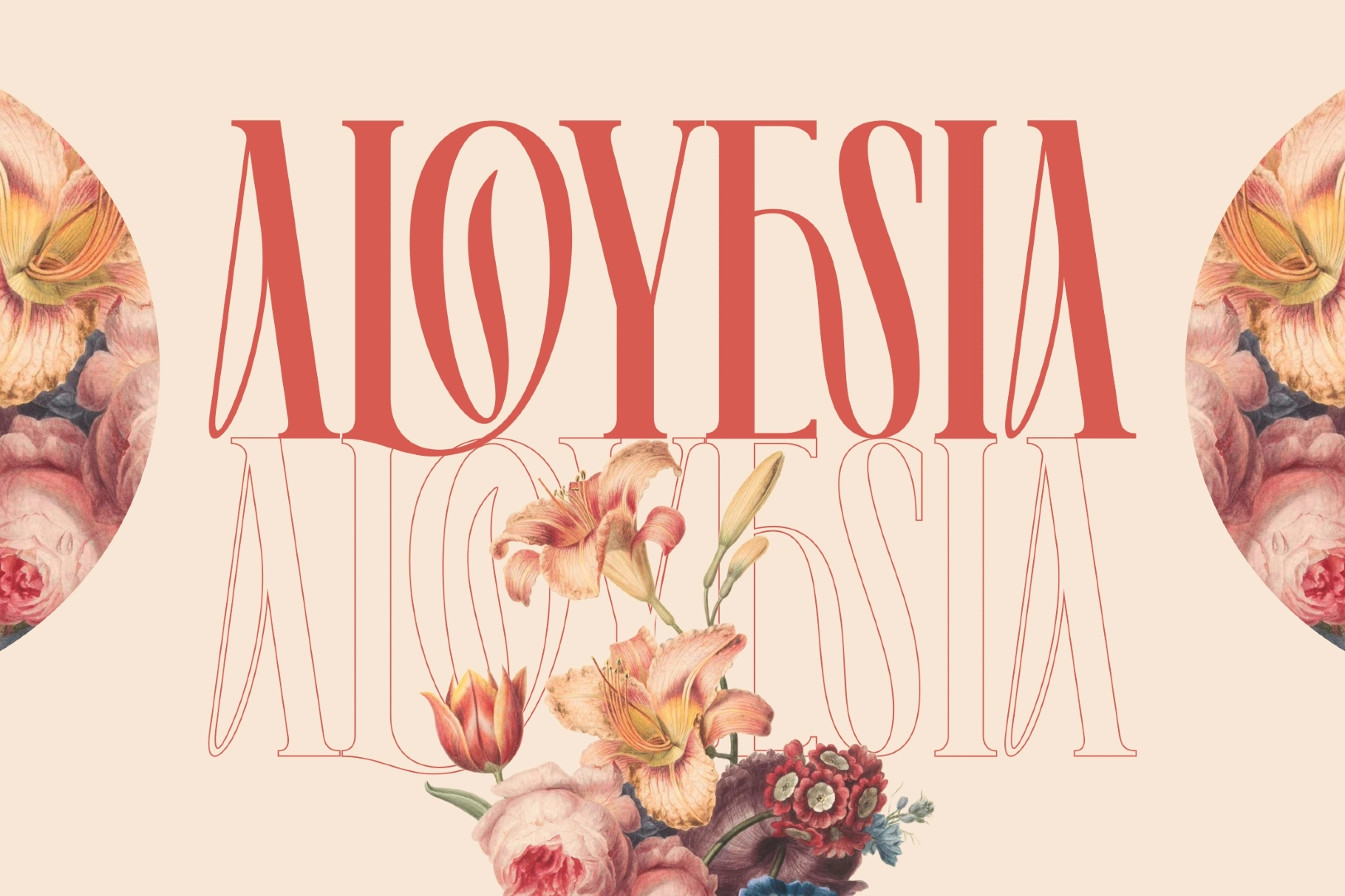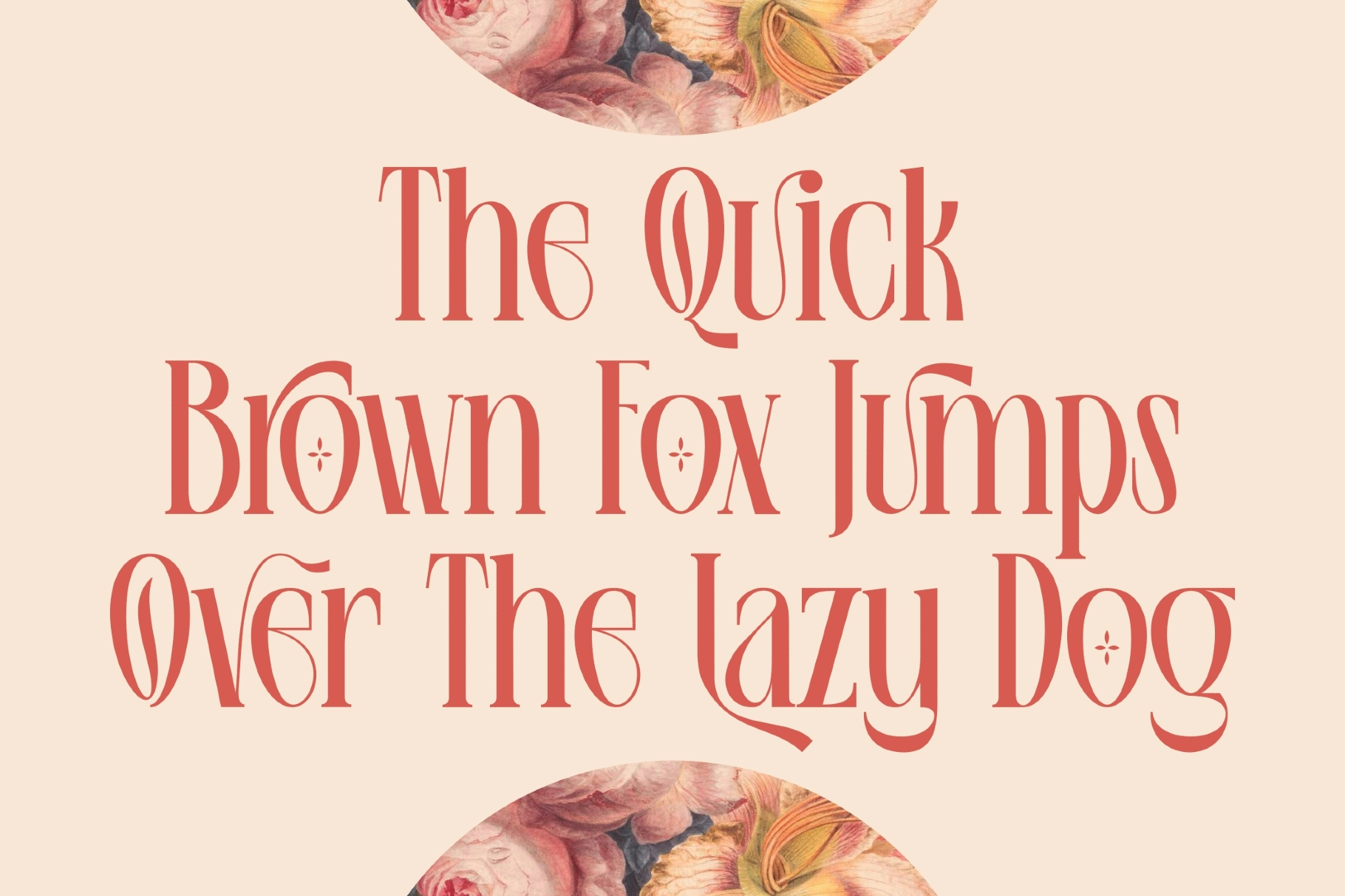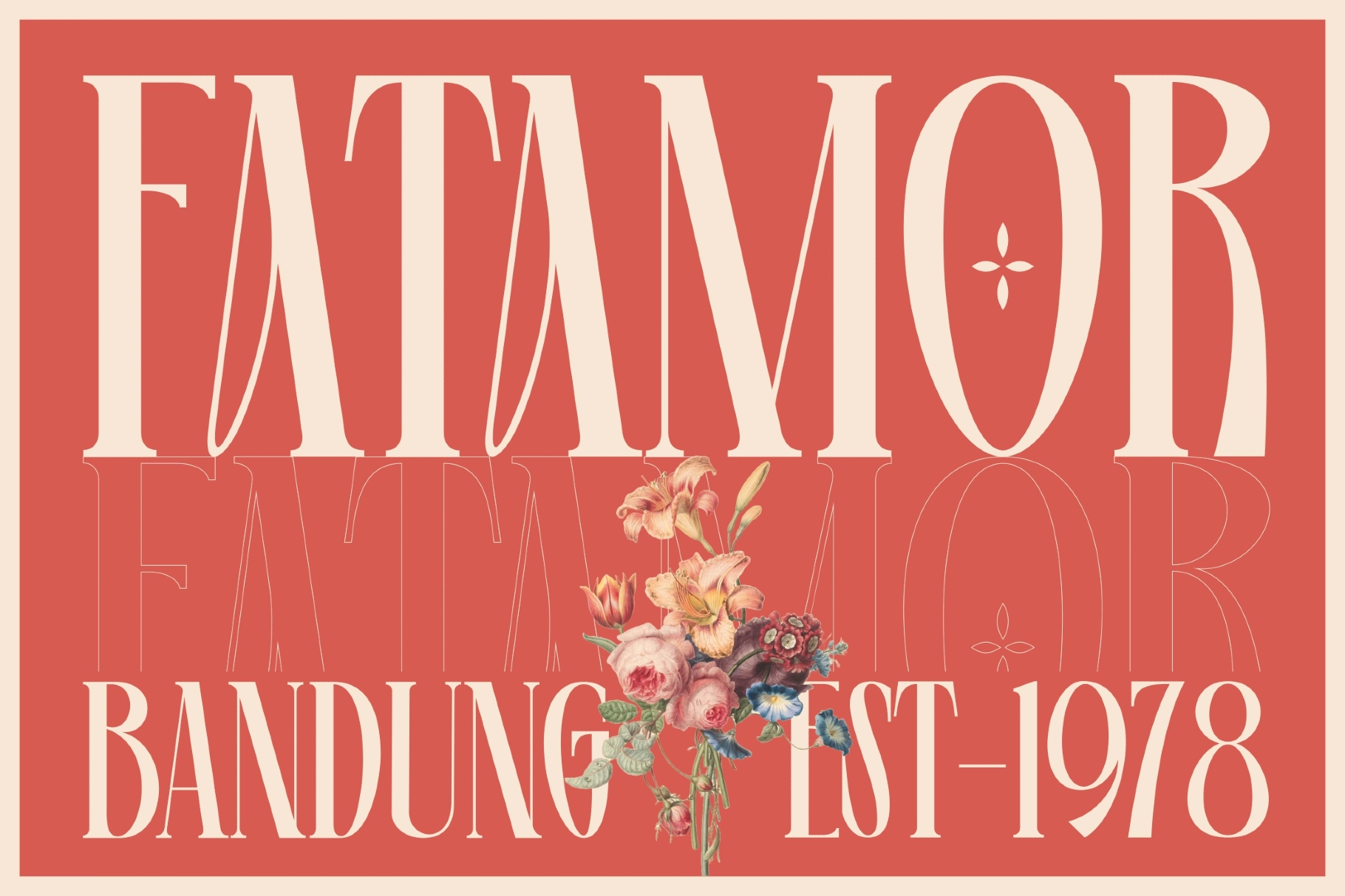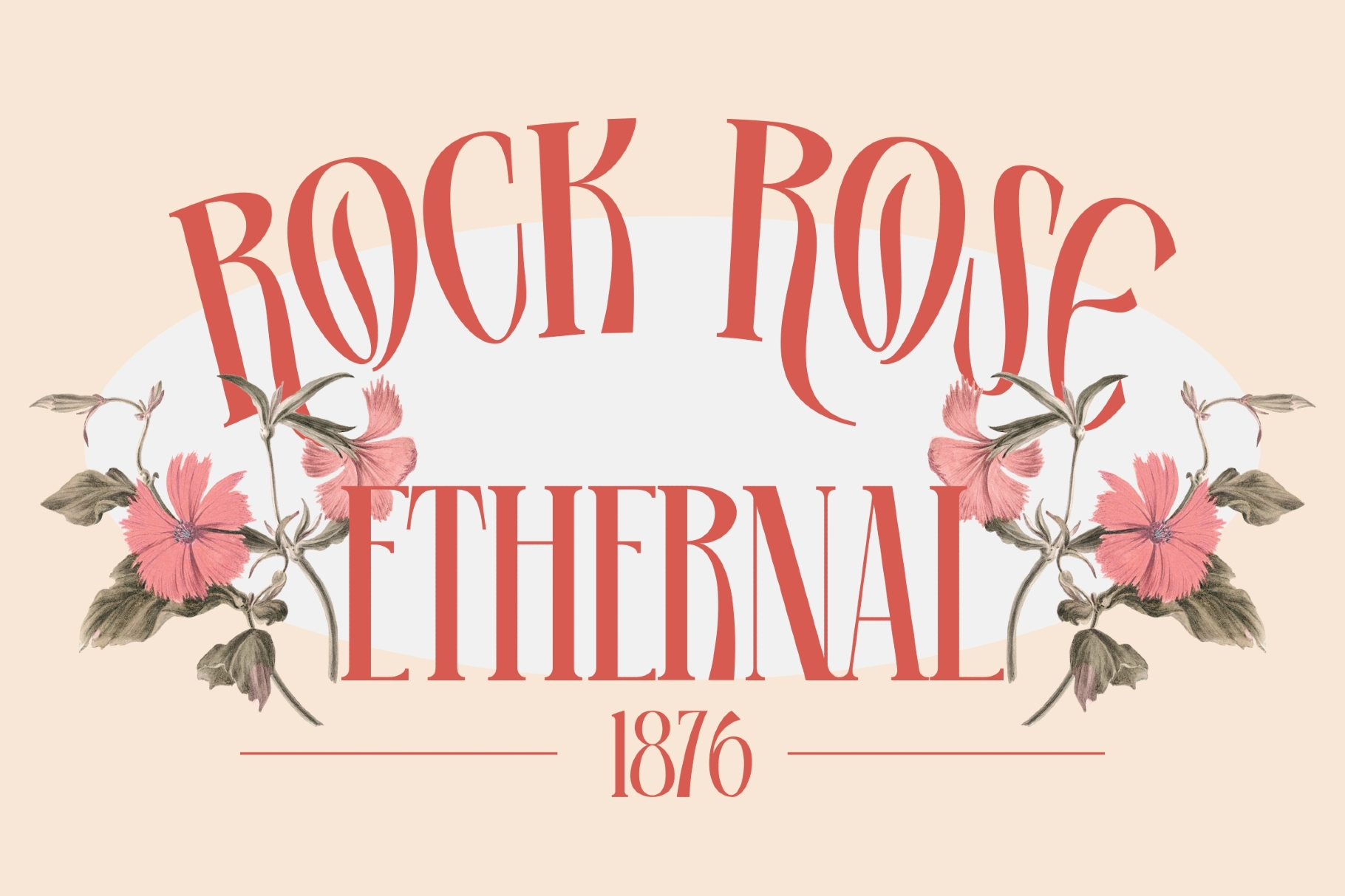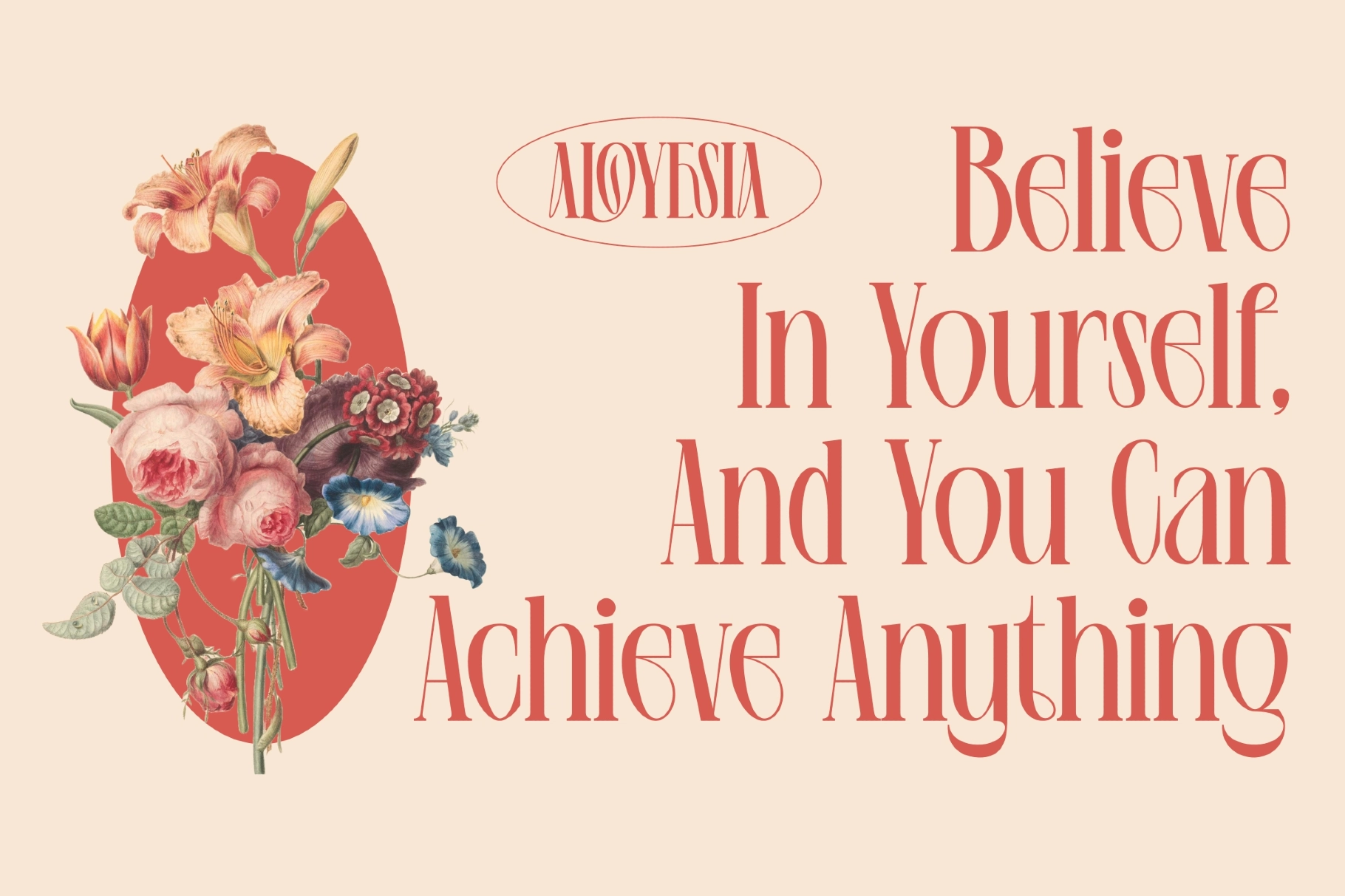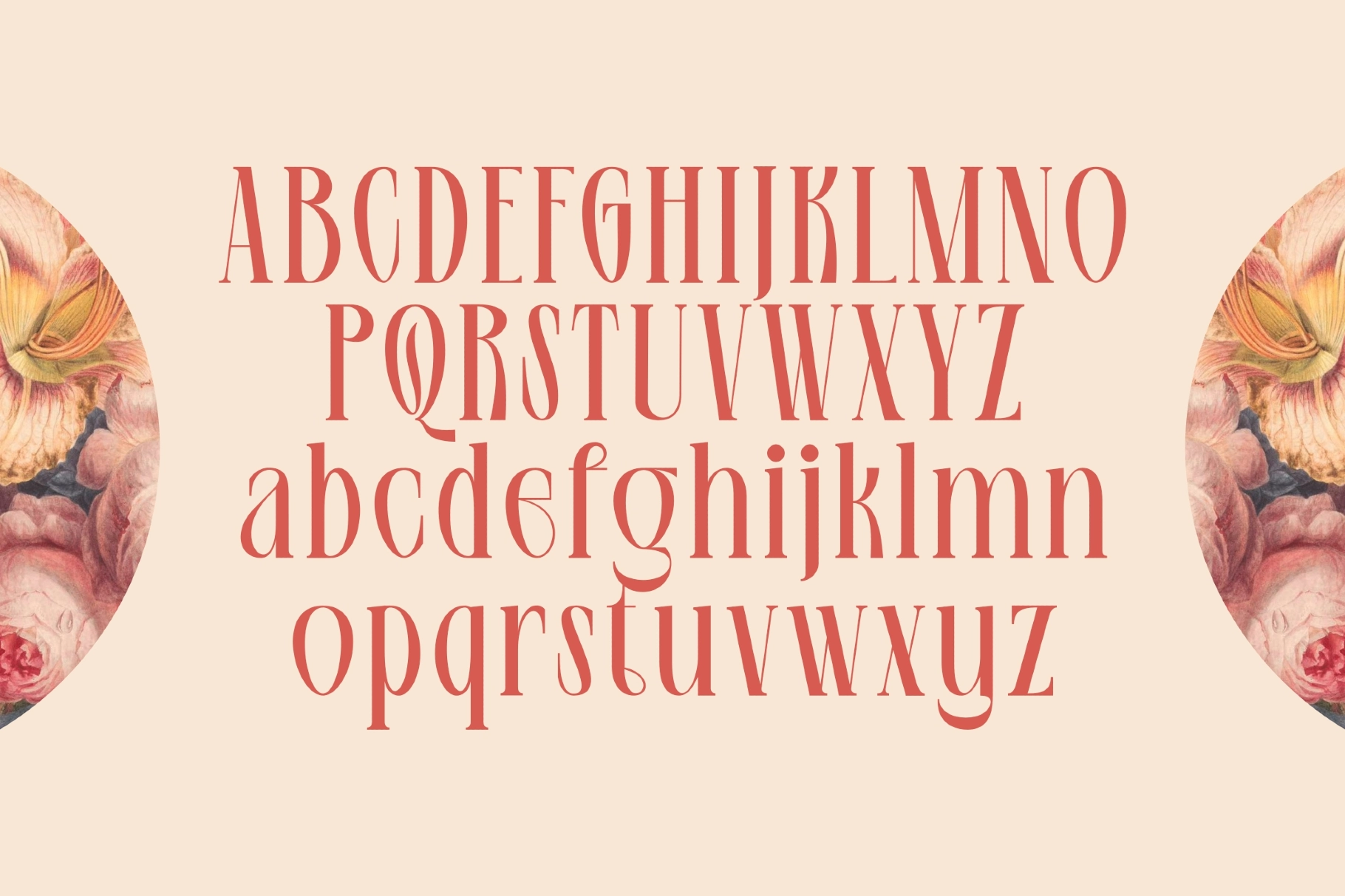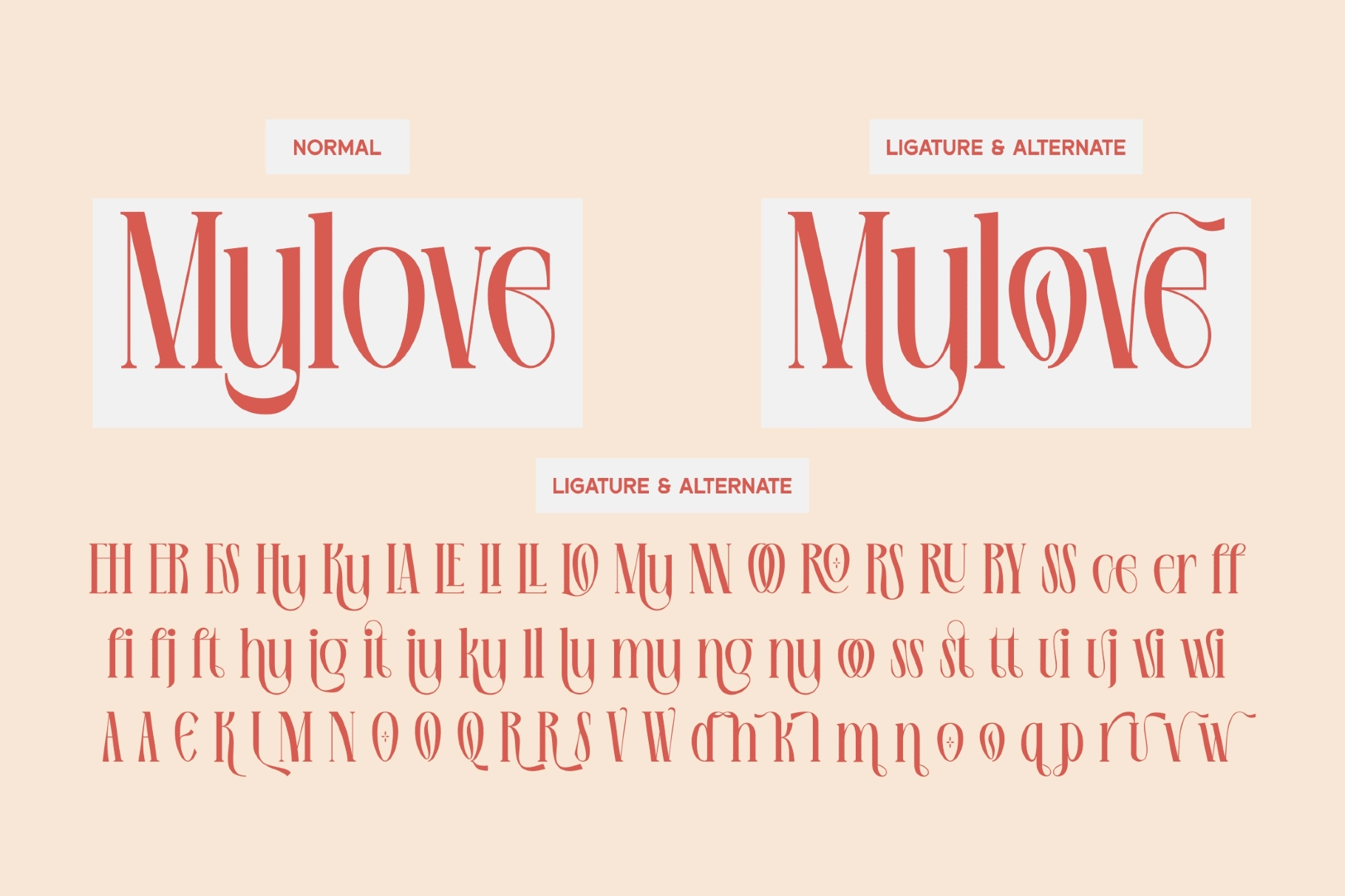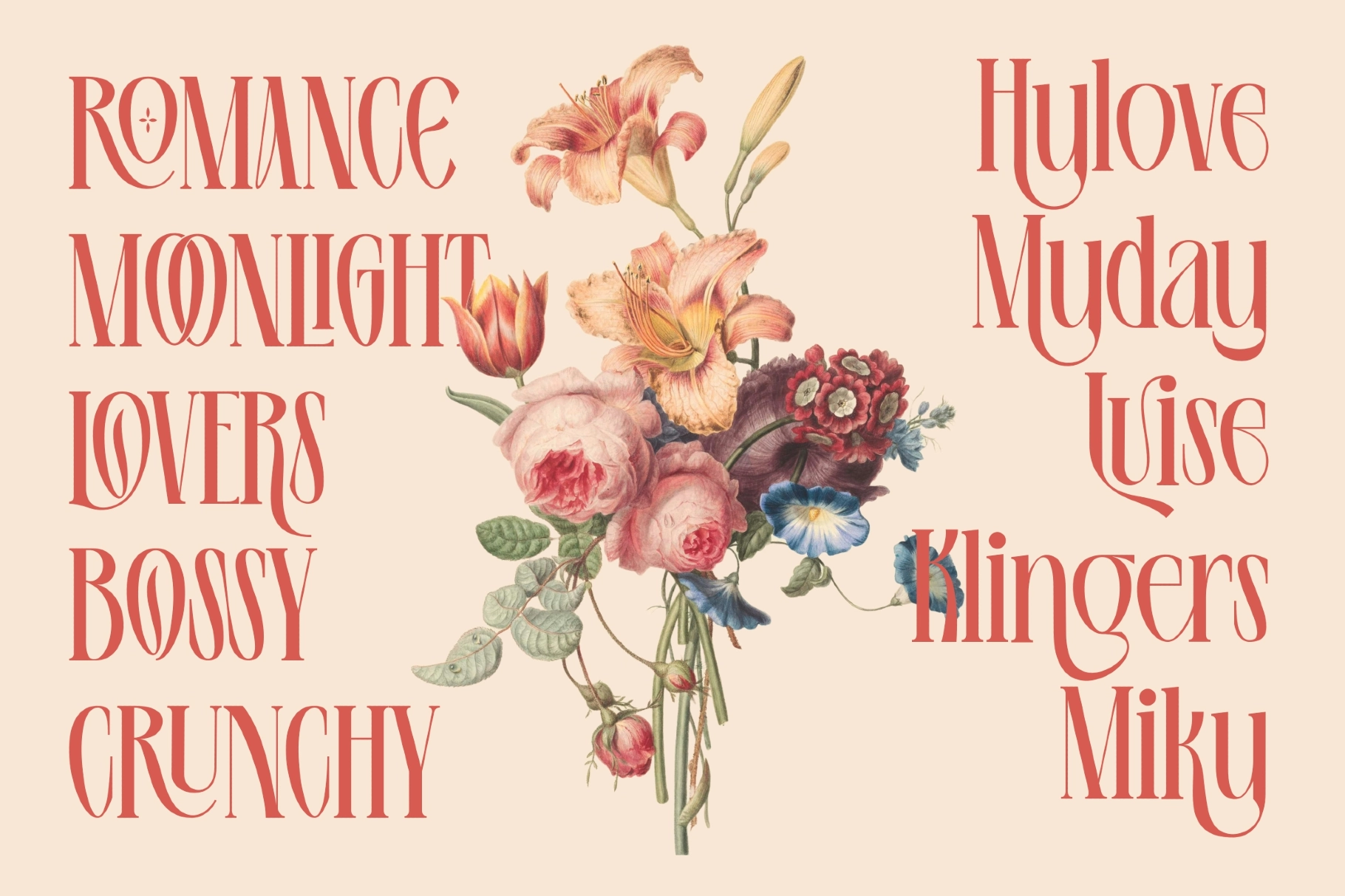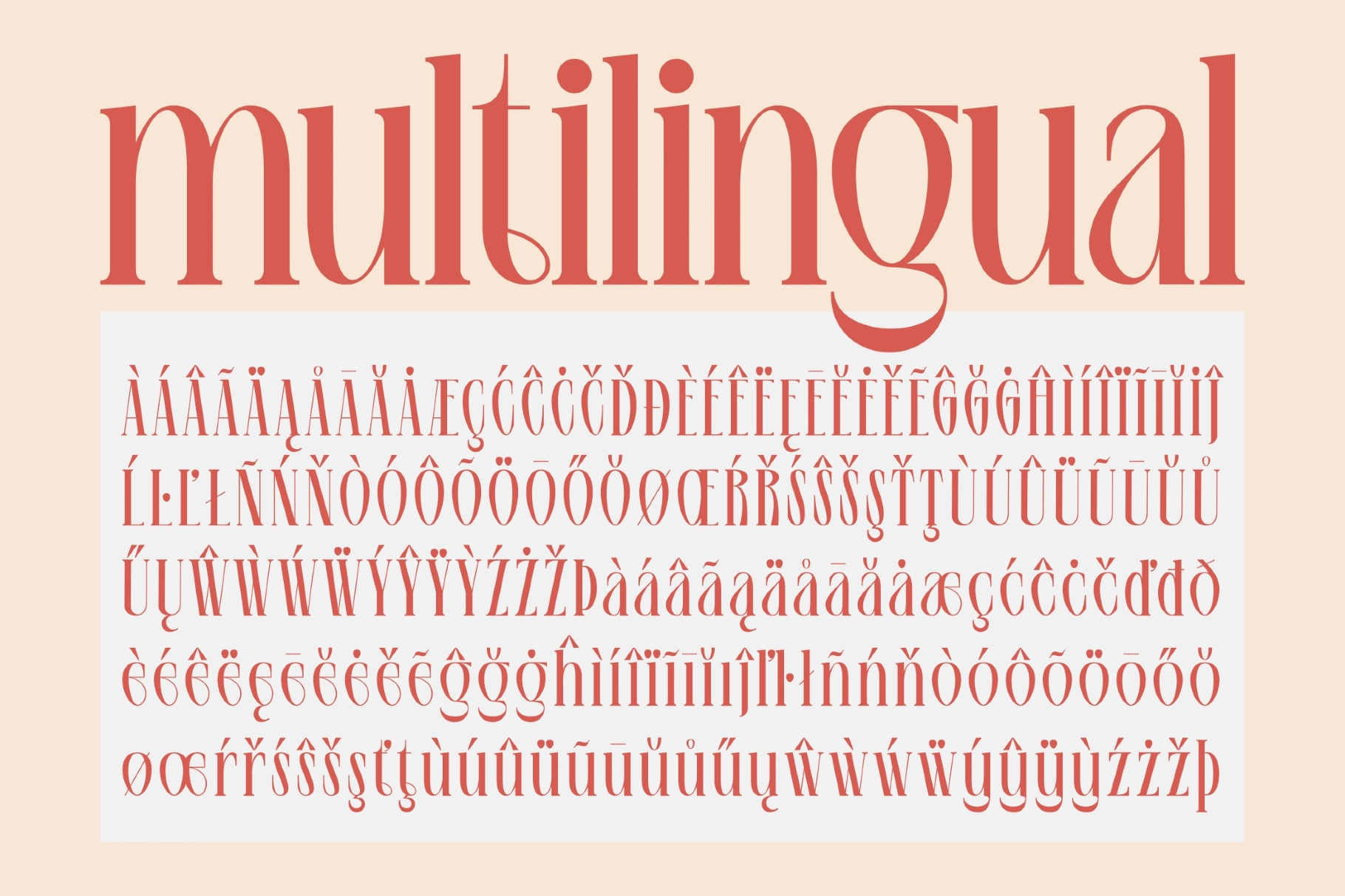
Aloyesia - Romantic Serif Font
Aloyesia
This romantic serif has tall condensed forms, soft curves, and graceful alternates that give each word a floral, editorial rhythm. Thin hairlines, sweeping descenders, and decorative ligatures make it elegant for refined headlines, feminine branding, and display layouts with a softer voice.
Aloyesia is a strong match for beauty logotypes, wedding stationery, magazine covers, boutique packaging, perfume labels, florist branding, social media quotes, invitation suites, apparel graphics, book covers, café menus, and lifestyle editorials.
- Ligatures & alternates